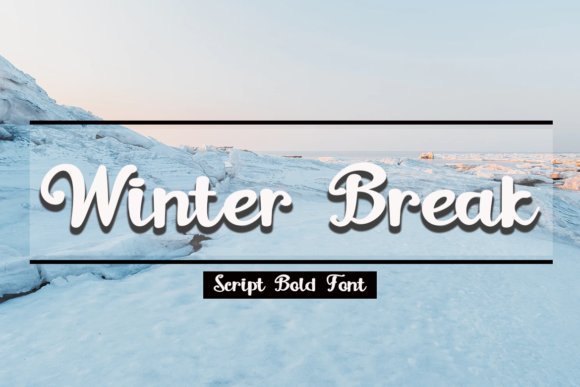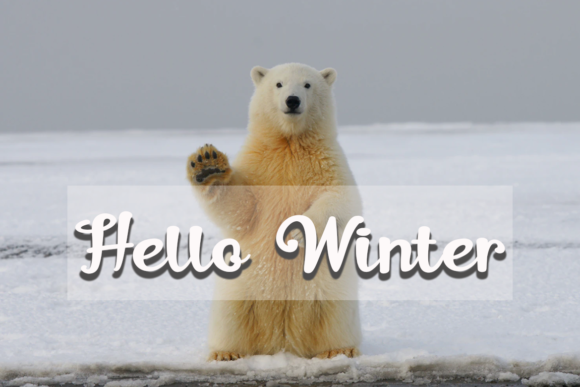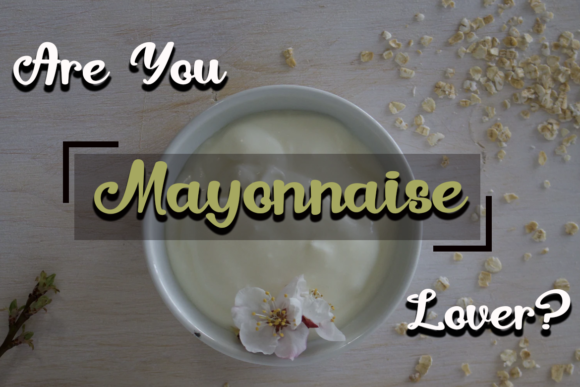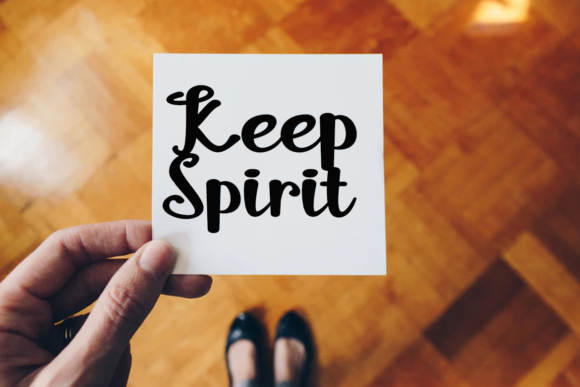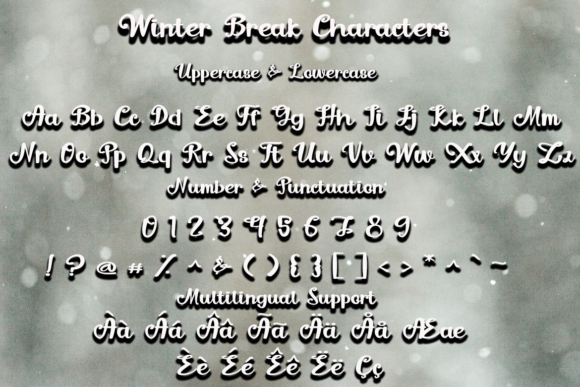
Winter Break Font
About Winter Break Font
Winter Break is a delightful and graceful handwritten font that exudes sweetness and charm in every stroke. Its flowing and elegant style makes it a perfect choice for a wide range of designs, adding a touch of warmth and personality to any project. Whether you’re creating wedding invitations, thank you cards, quotes, greeting cards, logos, or business cards, Winter Break will elevate your designs and leave a lasting impression.
With its natural and unique appearance, Winter Break captures the essence of a handwritten touch, making it the ideal font for adding a personal and heartfelt feel to your creations. The smooth lines and carefully crafted glyphs create a seamless and harmonious flow, resulting in a font that is both visually captivating and easy to read.
Winter Break truly shines on wedding invitations, where it sets the tone for a romantic and memorable event. Its graceful curves and elegant strokes add a touch of sophistication and refinement, making the invitations truly stand out and become cherished keepsakes for couples and their guests.
Thank you cards become expressions of gratitude and warmth with Winter Break. The font’s sweet and flowing nature conveys appreciation with every word, making recipients feel valued and special. Whether it’s a heartfelt thank you after a wedding or a simple gesture of appreciation, Winter Break brings sincerity and warmth to the message.
Quotes and greeting cards come alive with Winter Break, as its charming and endearing style infuses the words with emotions and sentiments. The font’s versatility allows it to adapt effortlessly to various design themes, whether it’s whimsical and playful or elegant and refined.
Winter Break also adds a personal touch to logos and business cards, making brands feel approachable and friendly. Its handwritten charm can create a lasting connection with customers, leaving a positive and memorable impression.
In conclusion, Winter Break is a sweet and flowing handwritten font that shines in a variety of designs, from wedding invitations to logos and everything in between. Its graceful and charming style elevates each project and makes it stand out with a touch of warmth and elegance. Embrace the beauty of Winter Break in your designs and bring a delightful handwritten touch to every creation.